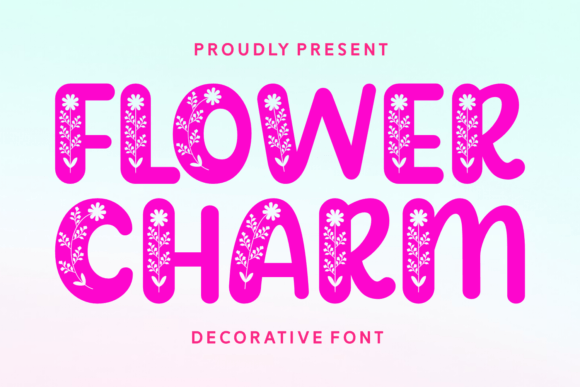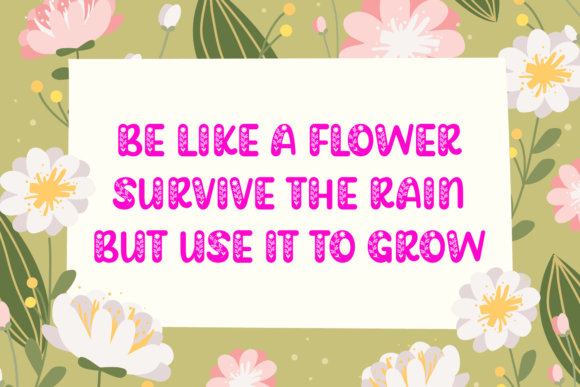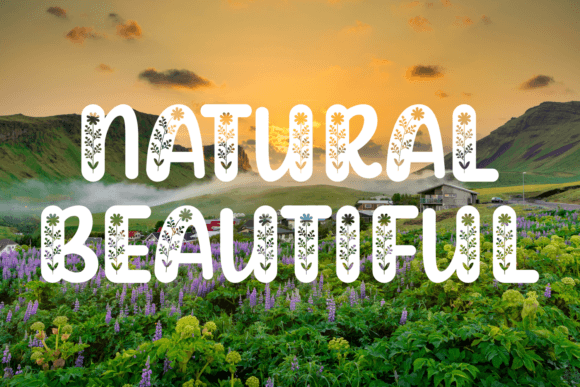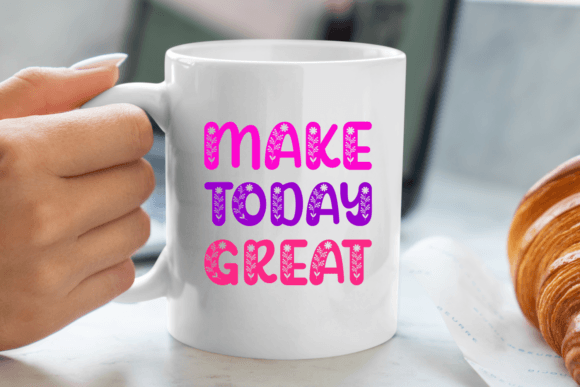
Flower Charm Font: A Cute Decorative Font for Cricut & Craft Projects
About the Flower Charm Font
Let us introduce you to Flower Charm Font, where timeless design meets modern craftsmanship. Flower Charm is a captivating decorative font adorned with stunning floral details that exude elegance and beauty. Each letter is intricately crafted with delicate blooms, petals, and foliage, creating a graceful and enchanting typographic style. The font’s floral elements add a touch of sophistication and femininity, evoking the charm of a blooming garden or a bouquet of flowers. Whether used for wedding invitations, greeting cards, branding materials, or feminine-themed designs, this font creates a captivating visual impact that is both enchanting and memorable. “Flower Charm” is sure to captivate viewers and infuse any project with a sense of timeless beauty and grace.
Flower Charm Font Usage Examples
Flower Charm Font Example